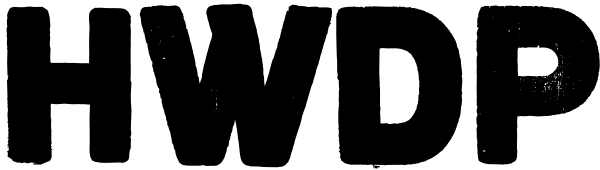
HWDP
HWDP is heavy letterpress type. HWDP has two style: bold and bold italic. This type looks great in headlines and longer text. CHEERS!
HWDP Italic